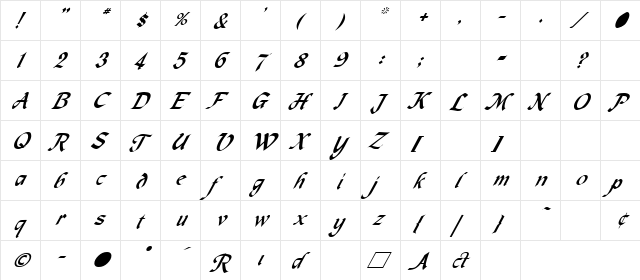
MacHumaine Italic
Design Context for MacHumaine Typeface
MacHumaine offers clean, dependable letterforms without strong stylistic allegiance, making it a practical choice for designers who need flexibility. Its italic angle brings a sense of urgency and motion to the letterforms.
Pro Tip: Use MacHumaine for emphasis, pull quotes, and subheadings where its slanted energy can add rhythm to the layout.